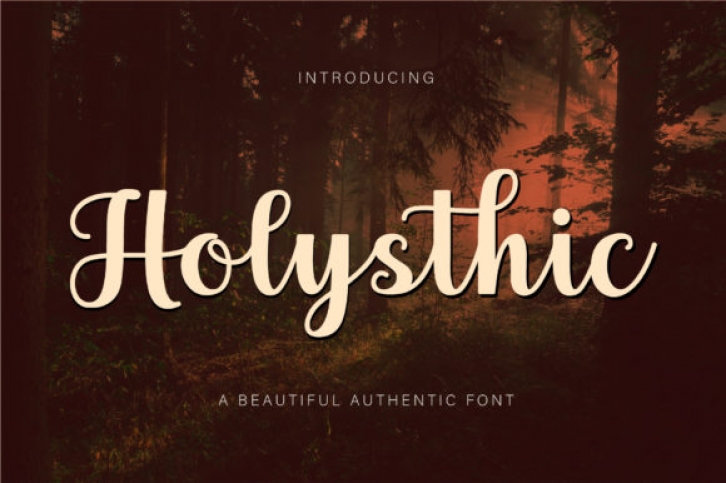
Holystic is an elegant and beautiful handwritten font with a thick body, carefully handcrafted to become a true favorite. Its casual calm makes it appear wonderfully down-to-earth, readable, and, ultimately, incredibly versatile. it will look outstanding in any context, whether it’s being used on busy backgrounds or as a standalone headline!